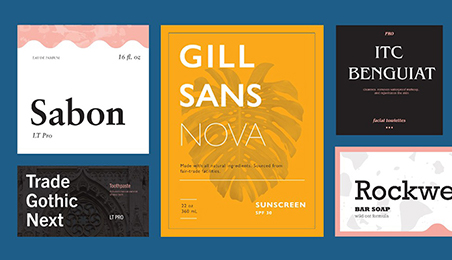
What are some tips for using sans serif fonts in a fresh and original way? How do sans serif fonts relate to different design styles, such as minimalism or modernism?